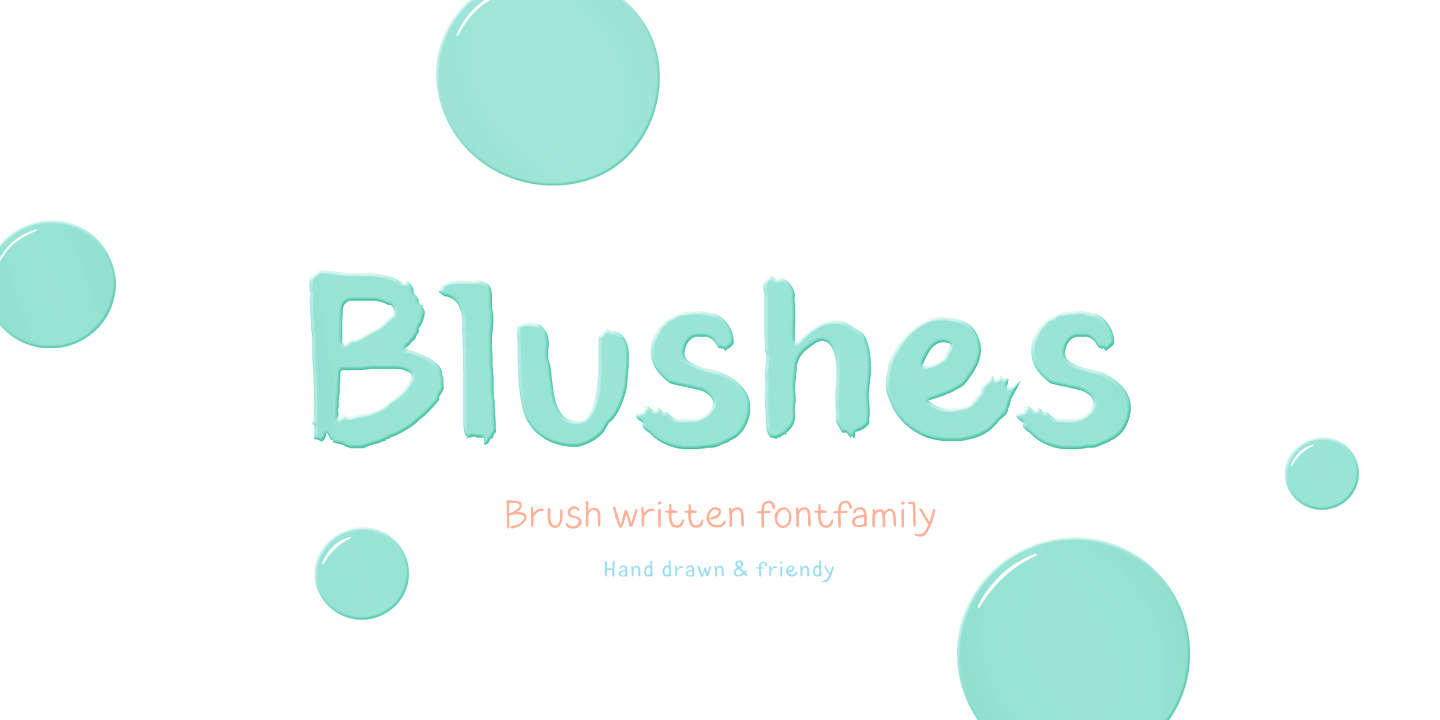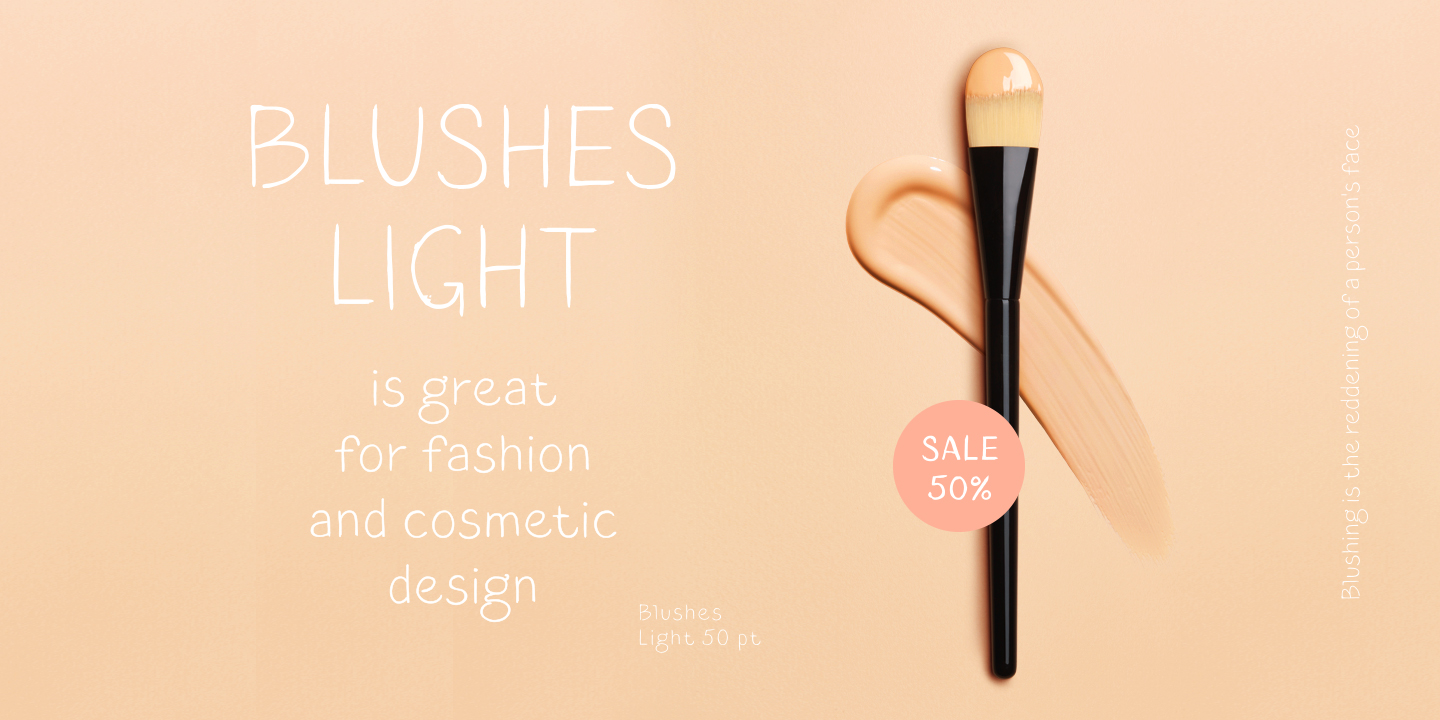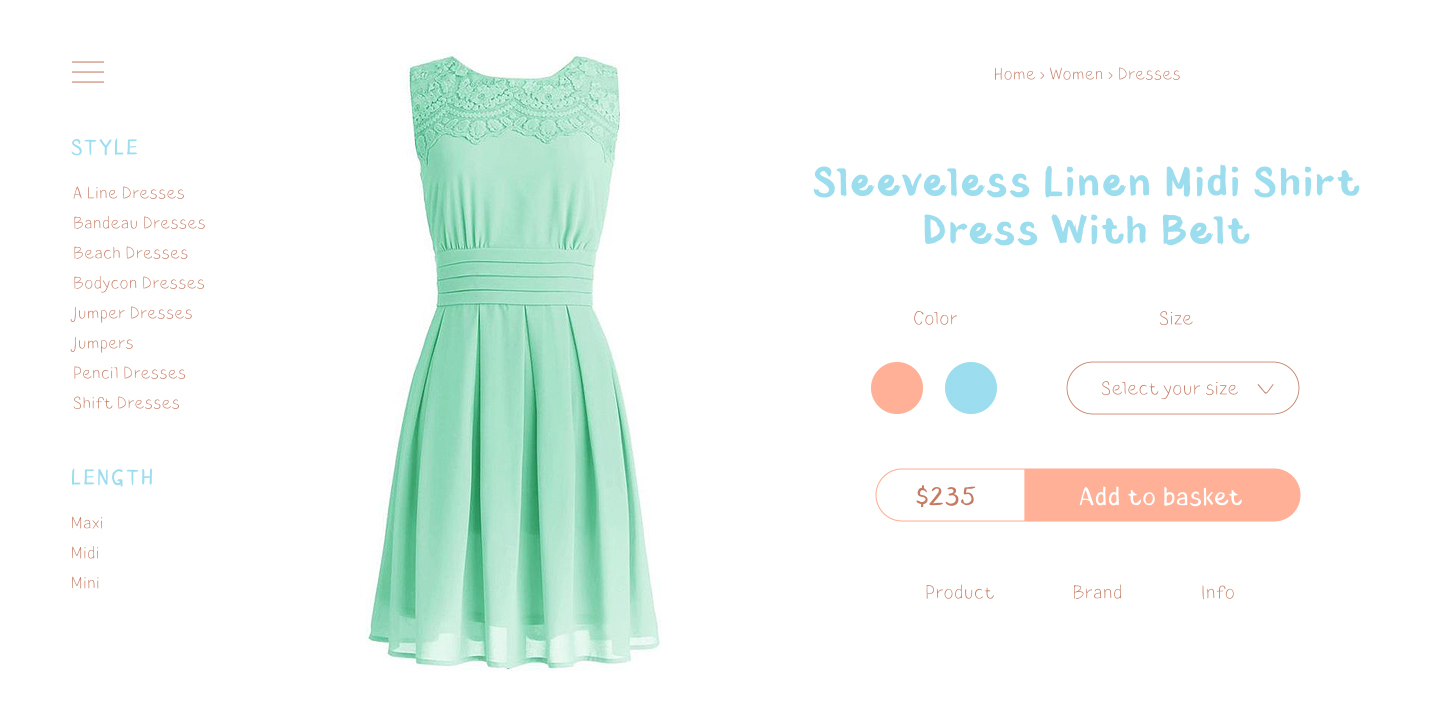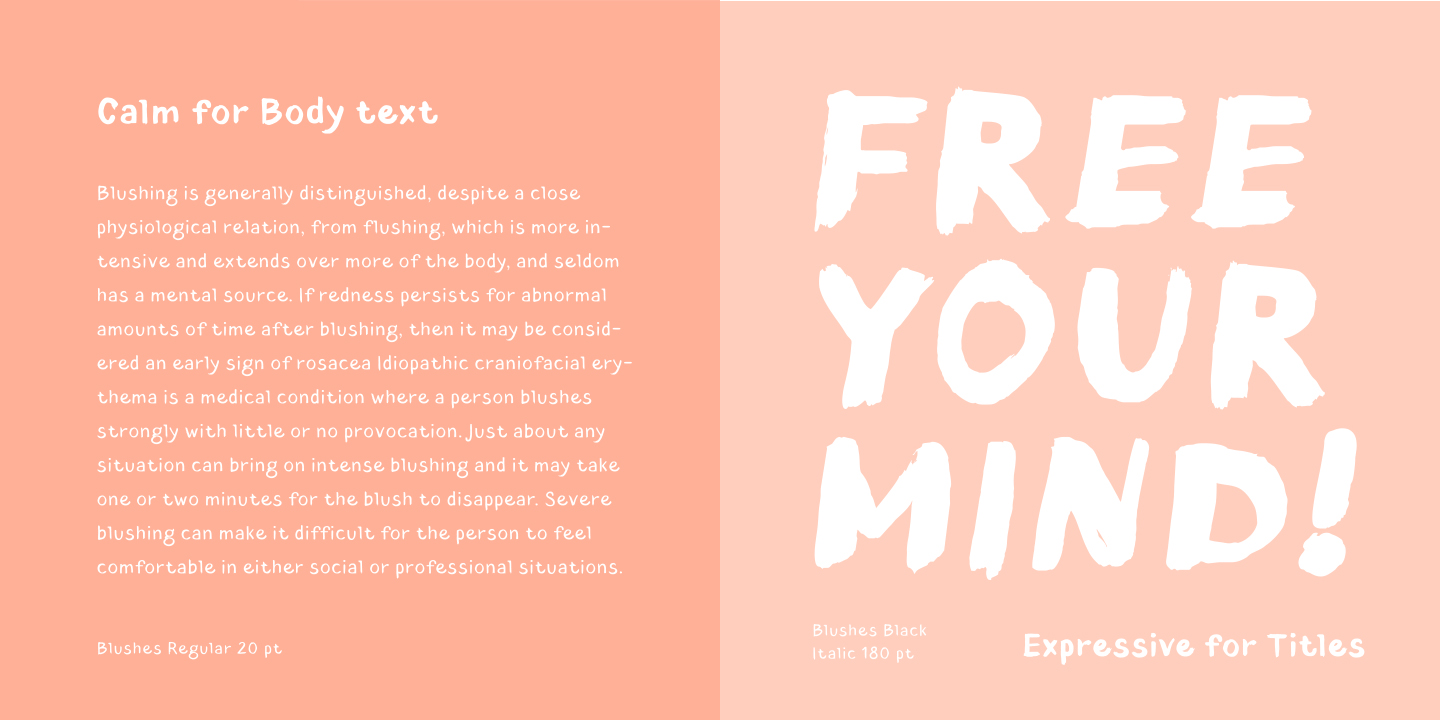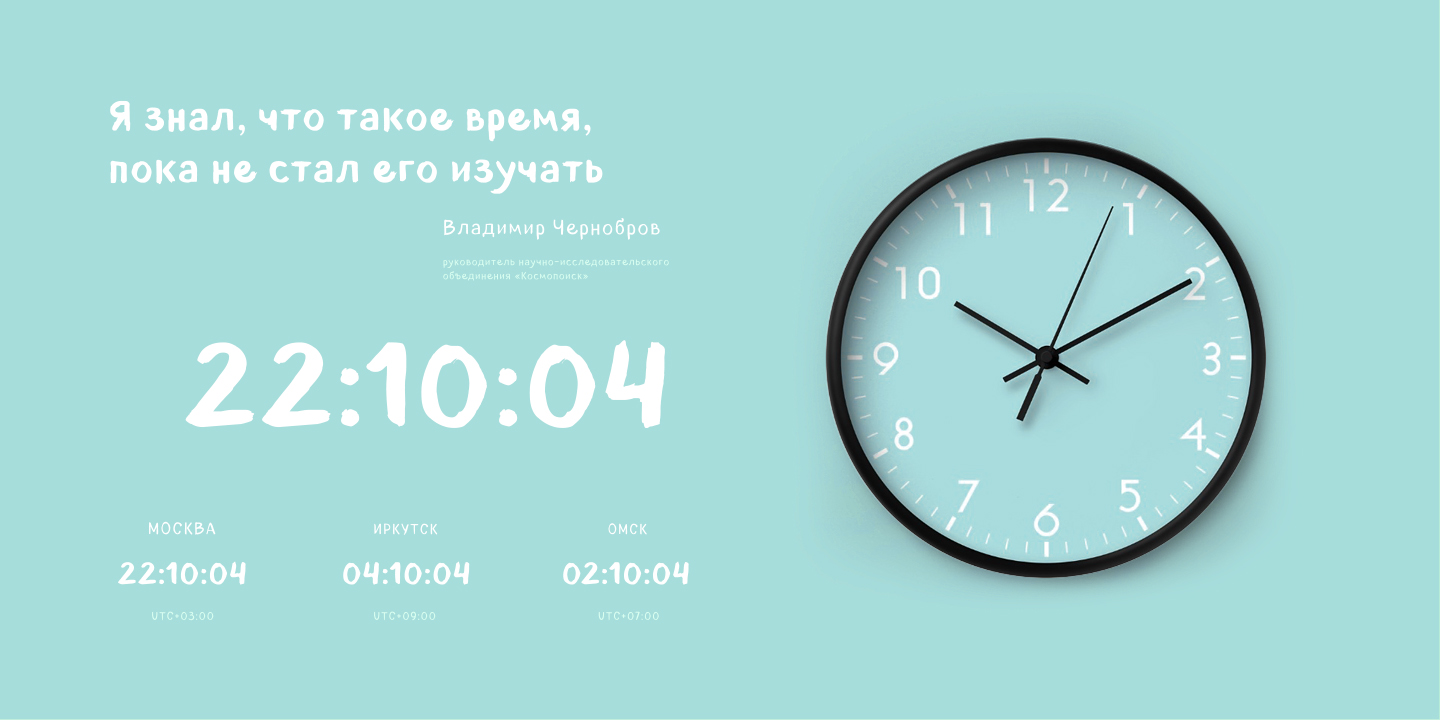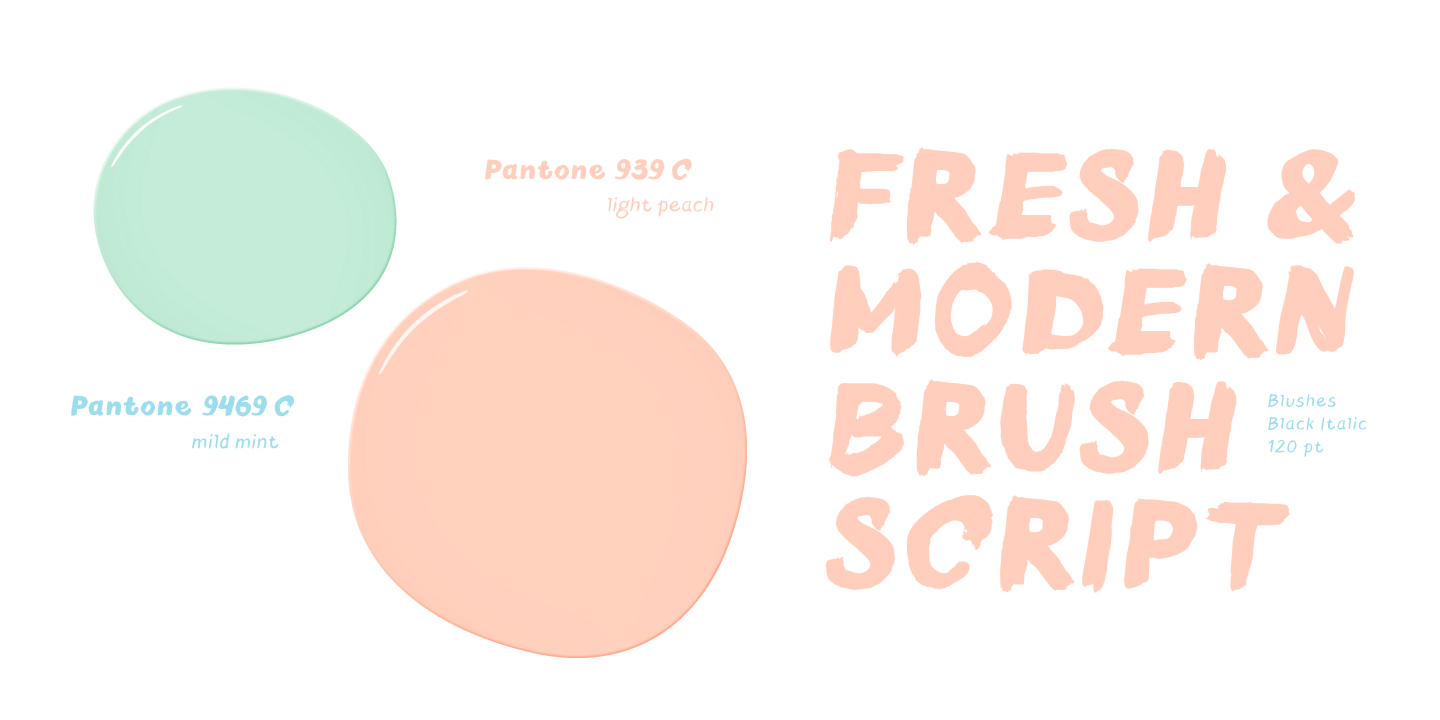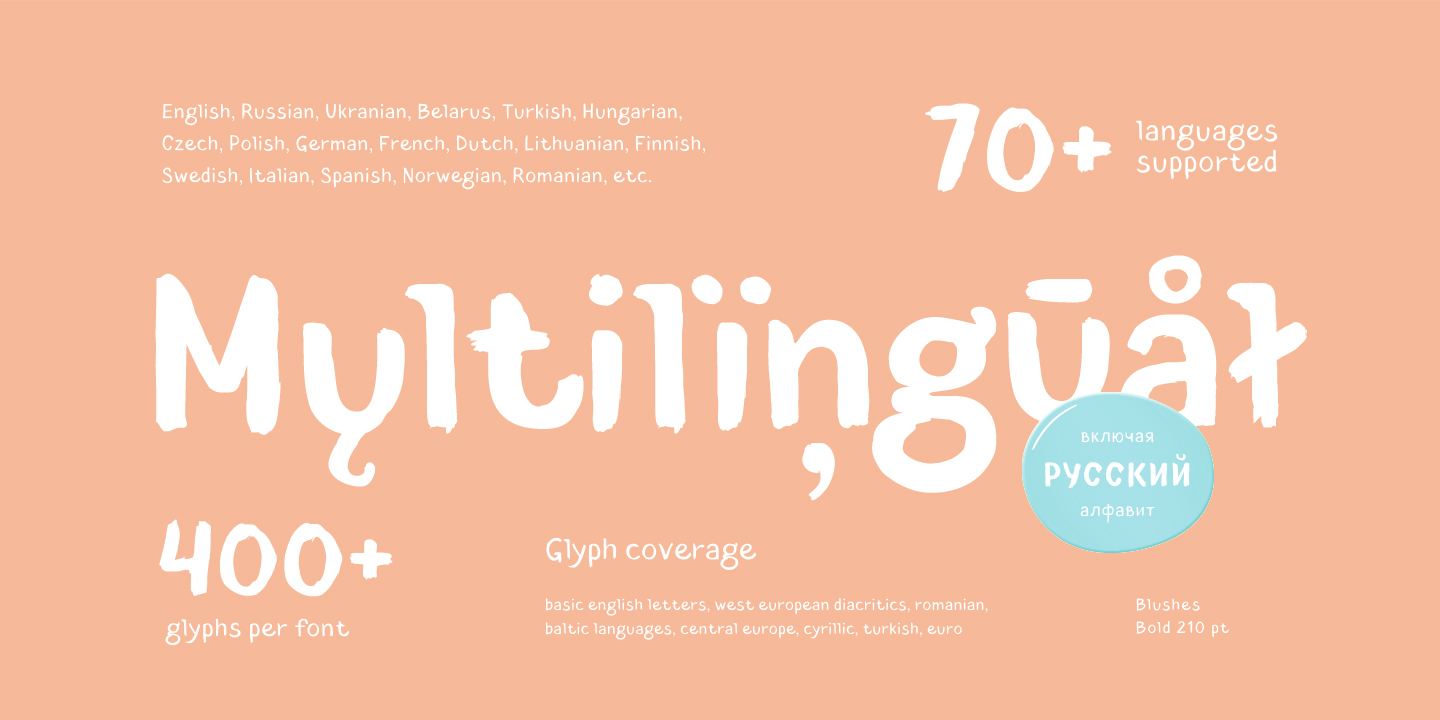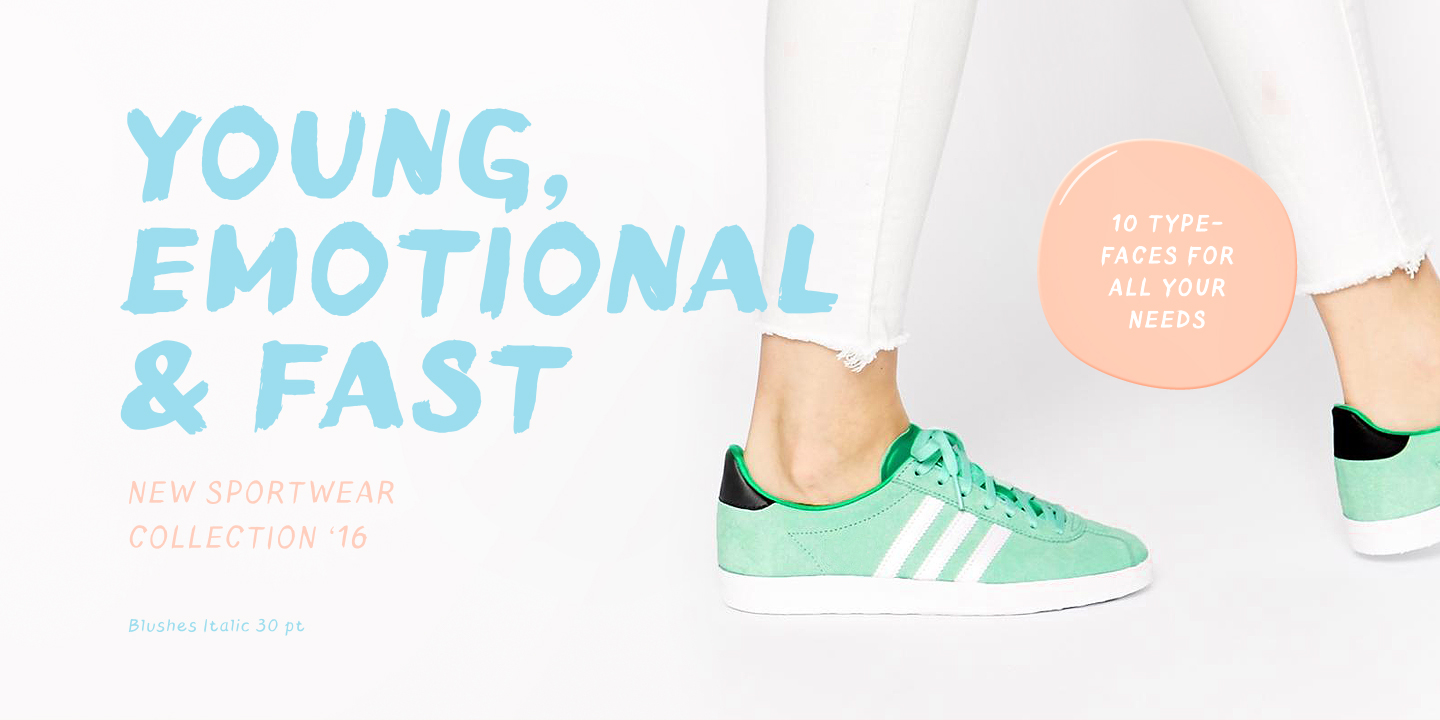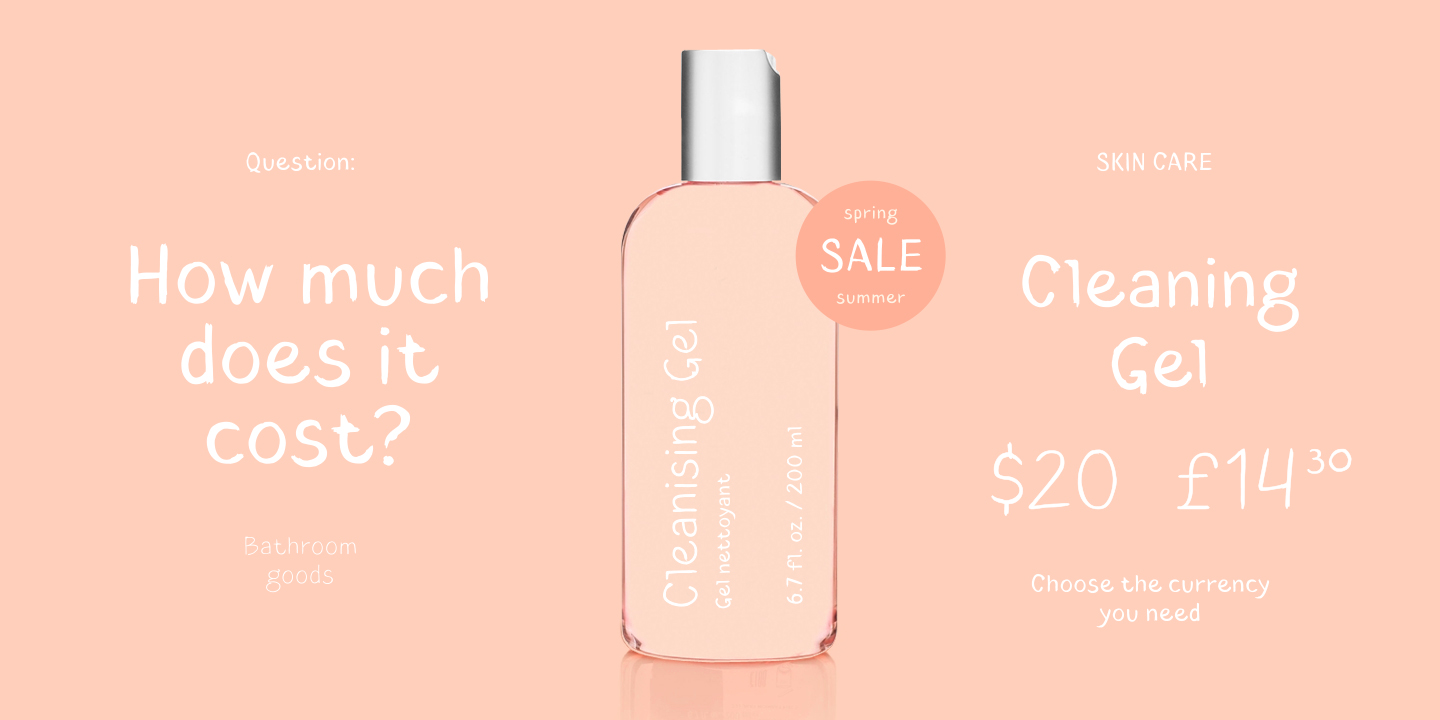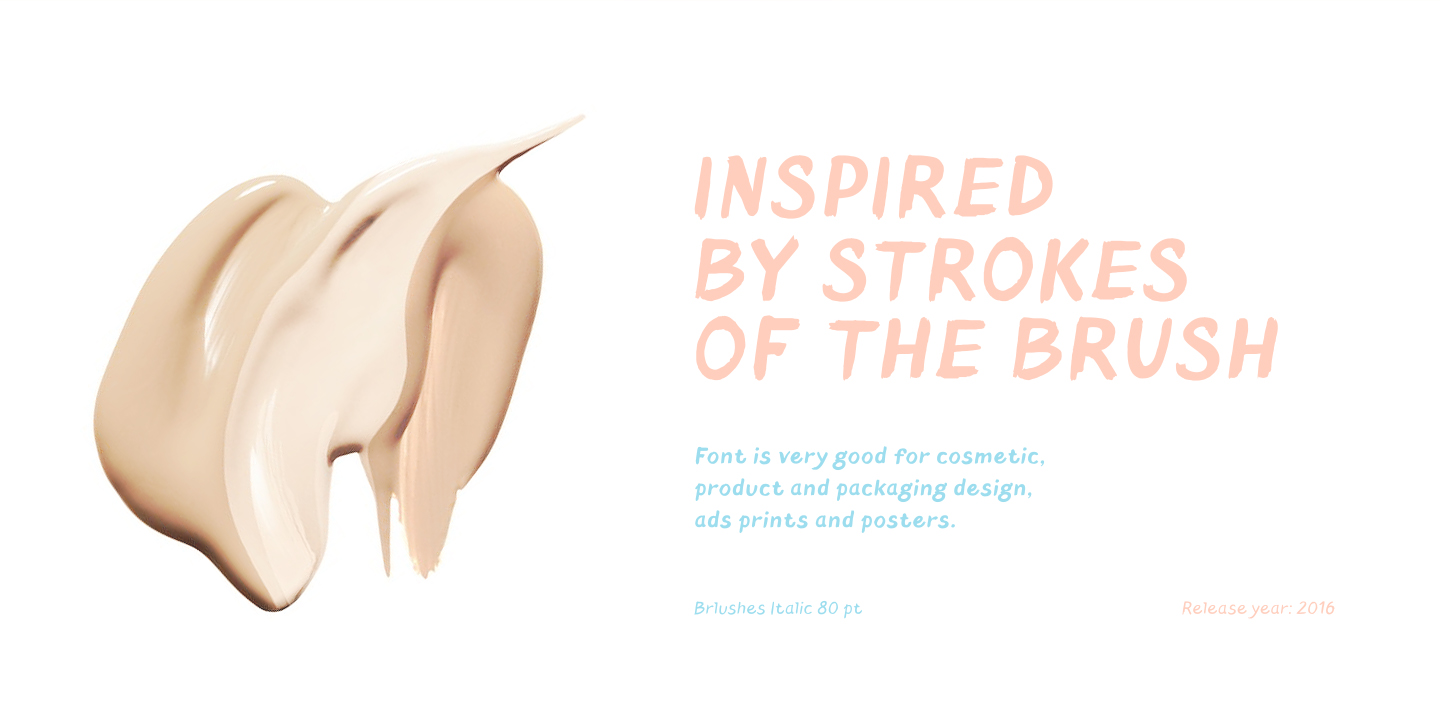
TT Blushes Family (10 fonts)
Glamorous makeup and trendy clothes are now harmoniously enhanced with our fonts which follow every trend of both industries. TT Blushes can do it all: create edgy prints on T-shirts, use it for beauty products packaging design and fashion magazines layouts as well as advertising brochures.
TT Blushes works perfectly in the contemporary digital environment. For instance, it is great for an edgy designer clothes on-line store’s website layout, as well as for a beauty products manufacturer’s app. TT Blushes fontfamily is created by TypeType’s classic formula (Thin, Light, Regular, Bold, Black & Italics)!